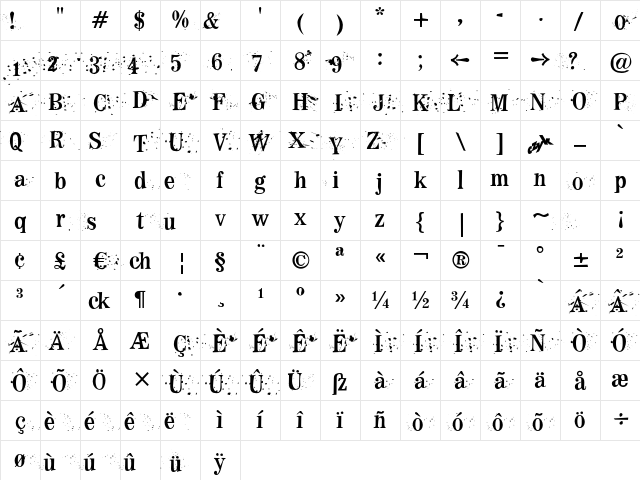
F2F MadZine LT Std Dirt
Style: Dirt
Designer: Alexander Branczyk
Design Context for F2F MadZine LT Std
F2F MadZine LT Std is a composed and adaptable typeface that performs quietly and consistently across a wide range of design contexts. Its slender proportions lend an understated elegance to any composition.